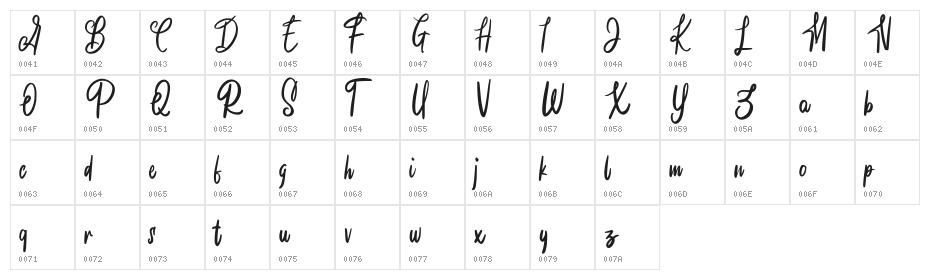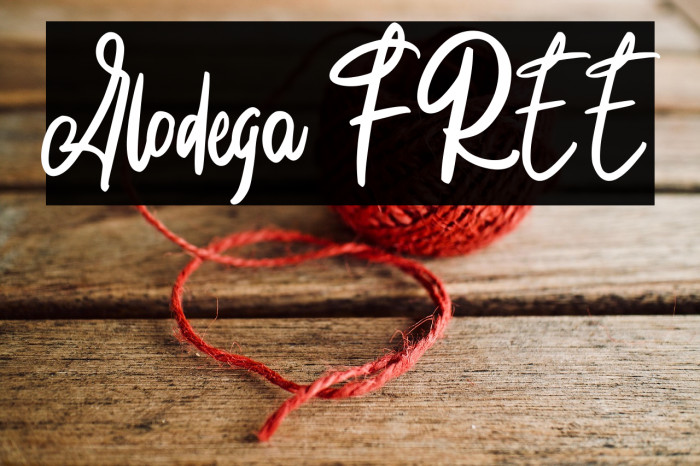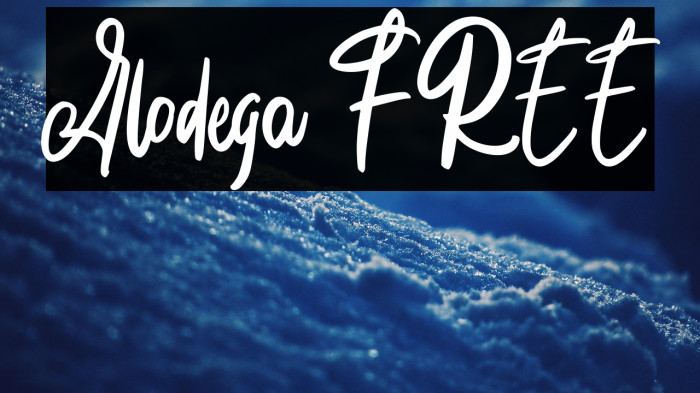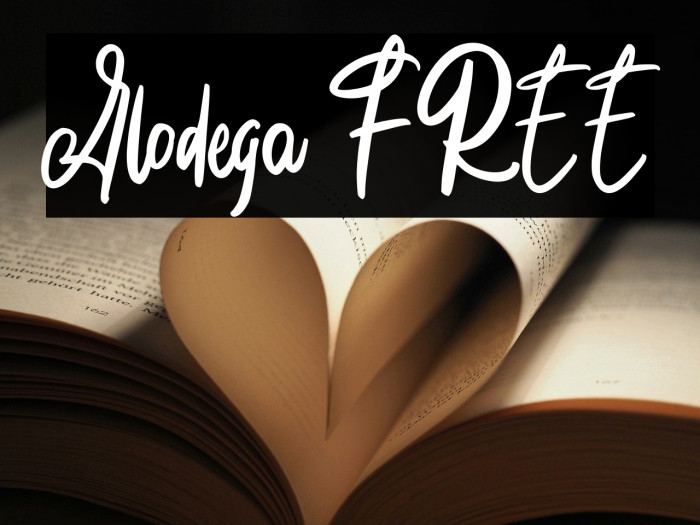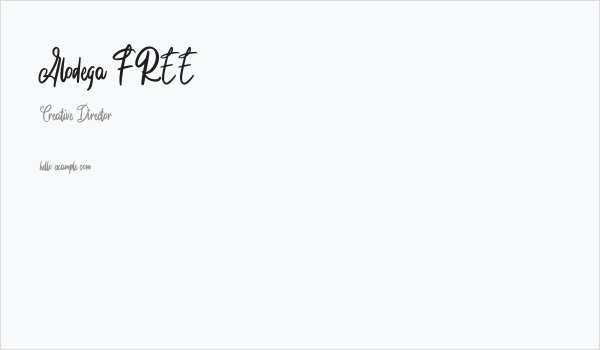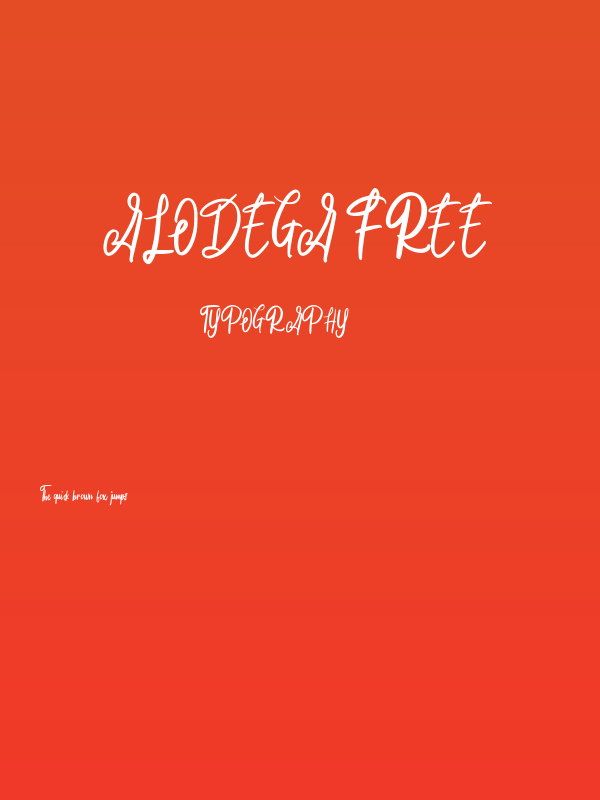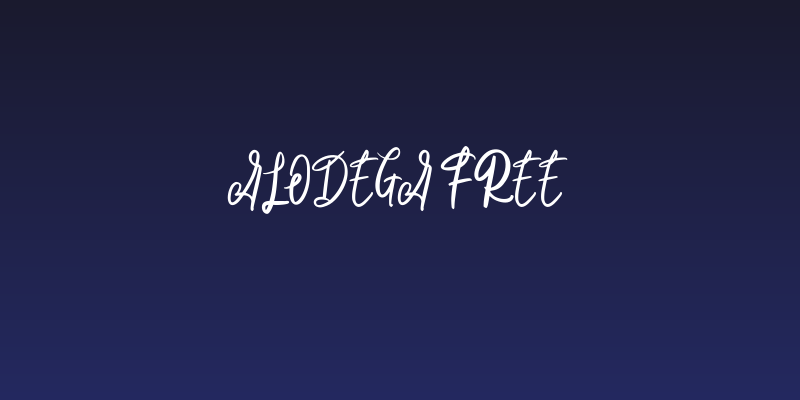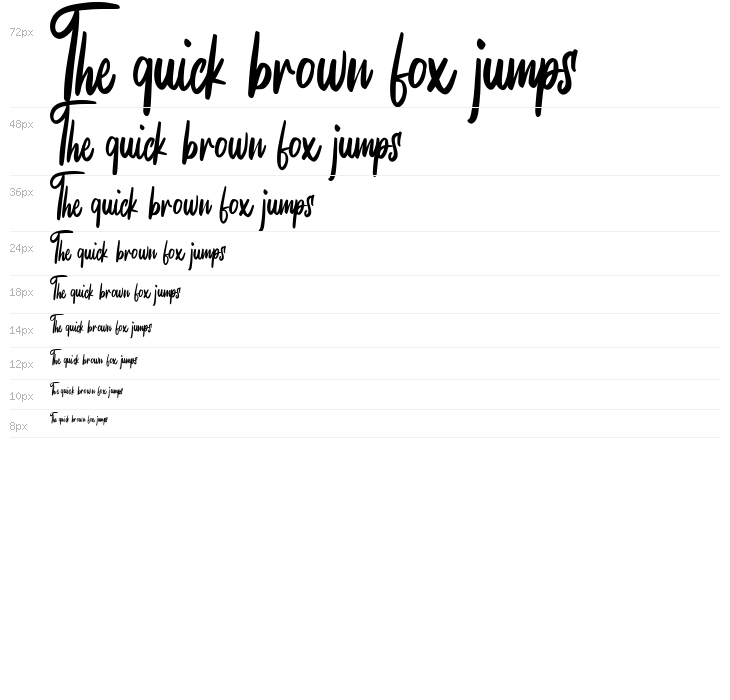
Alodega FREE Font
Alodega FREE Description
This font features a playful and energetic script style, characterized by its flowing, cursive letters. The uppercase letters are bold and expressive, with exaggerated loops and swirls that give a sense of movement and flair. The lowercase letters maintain a consistent style, with smooth connections between characters, enhancing the fluidity of the text. The numbers and special characters are designed to match the overall aesthetic, ensuring a cohesive look. This font is ideal for projects that require a personal touch, such as invitations, greeting cards, or branding materials that aim to convey warmth and creativity.
Use CaseLogos, Headlines, Invitations
Proposed ProjectsIdeal for invitations, greeting cards, and creative branding materials.